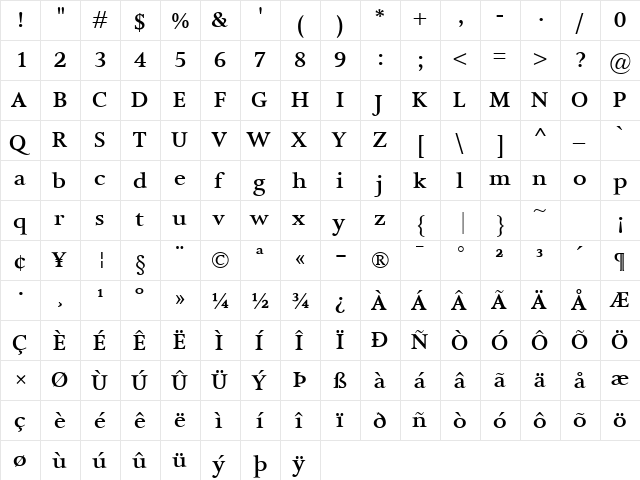
Isolde Bold
Design Context for Isolde Typeface
Isolde takes a measured approach to typography — its balanced proportions and neutral character make it a reliable workhorse for both digital and print work. Its bold stroke weight gives it real presence on the page.